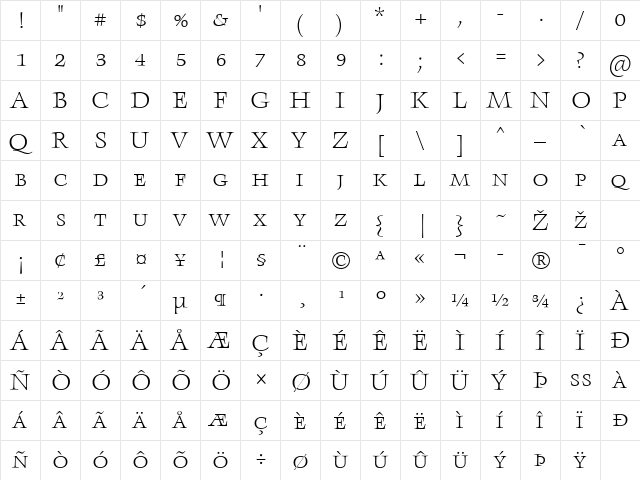
AngkoonTF-LightSC Regular
| Foundry | Xavier Dupre, published by FontShop International for the FontFont Library |
| Designer | Xavier Dupre |
Design Context for AngkoonTF-LightSC Typeface
AngkoonTF-LightSC is a composed and adaptable typeface that performs quietly and consistently across a wide range of design contexts. Its slender proportions lend an understated elegance to any composition.